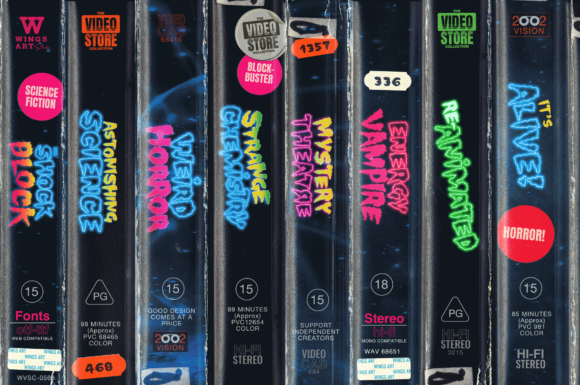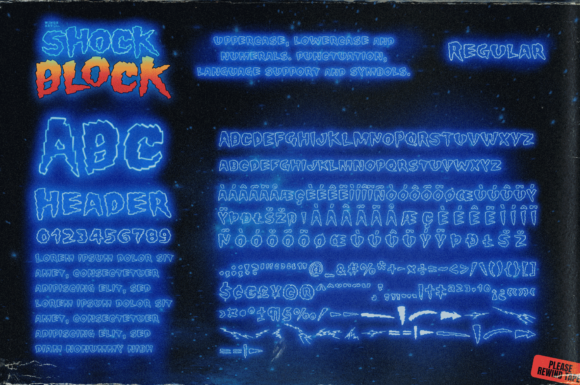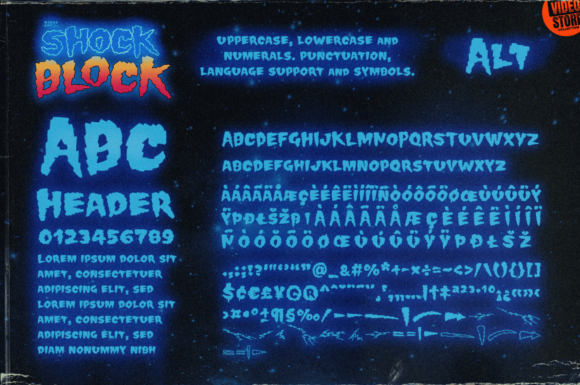
Introduction to Shock Block Font
Who hasn’t had that moment where they’re brainstorming a creative project, and suddenly, the perfect font pops into their mind? For designers, finding the right font can be the difference between a great project and an unforgettable one. That’s exactly what happened when I stumbled upon the electrifying Shock Block Font, a display and dingbats duo font that’s out of this world.
With its hand-drawn, pen-and-ink design inspired by classic horror comics, 80s movies, and Saturday morning cartoons, the Shock Block Font is a highly volatile design resource that’s sure to add some serious spark to your next project. And the best part? It’s a free download, making it a high-quality design resource that’s accessible to designers of all levels.
Key Features of Shock Block Font
- High-quality font with a unique, bold design perfect for creative projects.
- Features a large character set, including uppercase and lowercase letters, numbers, and punctuation marks.
- Perfect for use in graphic design, digital art, and other creative projects where a bold, eye-catching font is needed.
Honest Review: Shock Block Font
I recently had the chance to work with the Shock Block Font, and I must say, it’s a game-changer for any creative project. This font is perfect for designers who need a unique and bold design element to make their work stand out.
- High-quality design: The Shock Block Font is incredibly detailed and has a clear, crisp appearance that’s perfect for digital design.
- ⚠️ Limited font styles: While the Shock Block Font is a great addition to any design project, it’s limited in terms of font styles, which might not be ideal for designers who need a variety of options.
- ⚠️ Not suitable for all design projects: The Shock Block Font is best suited for bold and edgy designs, so it might not be the best choice for more conservative or traditional projects.
Overall, I’m impressed with the Shock Block Font and would definitely recommend it to designers who need a high-quality, bold font for their creative projects.
Tips for Getting the Most Out of Shock Block Font
Experiment with different font sizes and styles to create visual interest in your design. Use the transparent background feature to create a sense of depth and dimensionality.
Shock Block Font is ideal for creating bold, eye-catching headlines, titles, and labels. It’s perfect for use in posters, flyers, brochures, and other marketing materials where a unique, high-quality font is required.